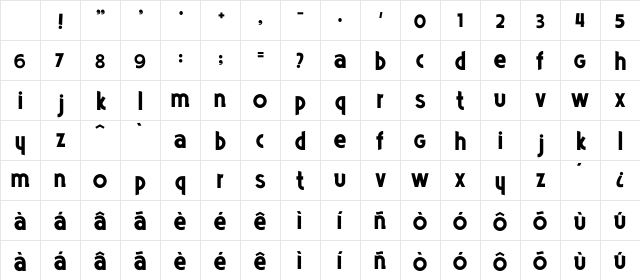
Complete Poets Poets glyph index. Displaying only characters natively supported by Poets Poets font.
Poets is a composed and adaptable typeface that performs quietly and consistently across a wide range of design contexts.